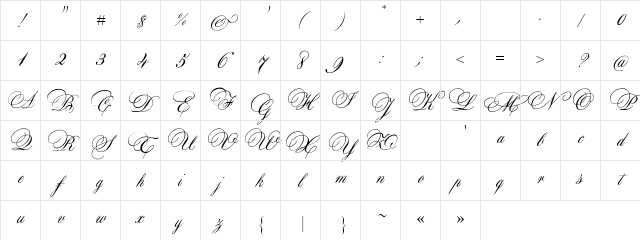
Aurora Script Regular
Foundry: Ivan Zeifert & Alexandra Gophmann works
Designer: Ivan D Zeifert & A.L.G
Design Context for Aurora Script
Aurora Script flows with the natural rhythm of handwritten lettering, making it ideal for designs that call for warmth and personal expression.
Font Pairing: Combine Aurora Script with a simple geometric sans for maximum contrast - the tension between flowing curves and clean structure is a classic typographic pairing.
Pro Tip: Use Aurora Script for short runs of text - names, titles, or taglines. Extended body copy in script faces tires the eye quickly.